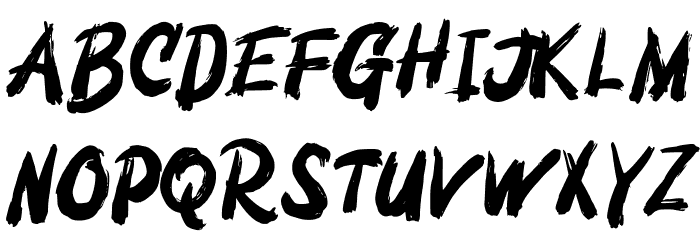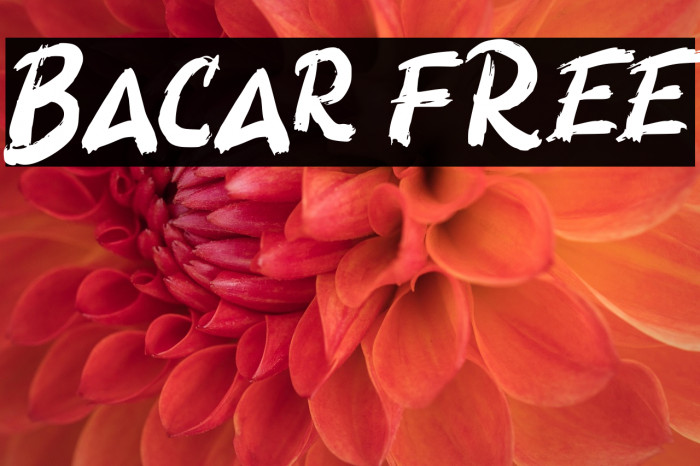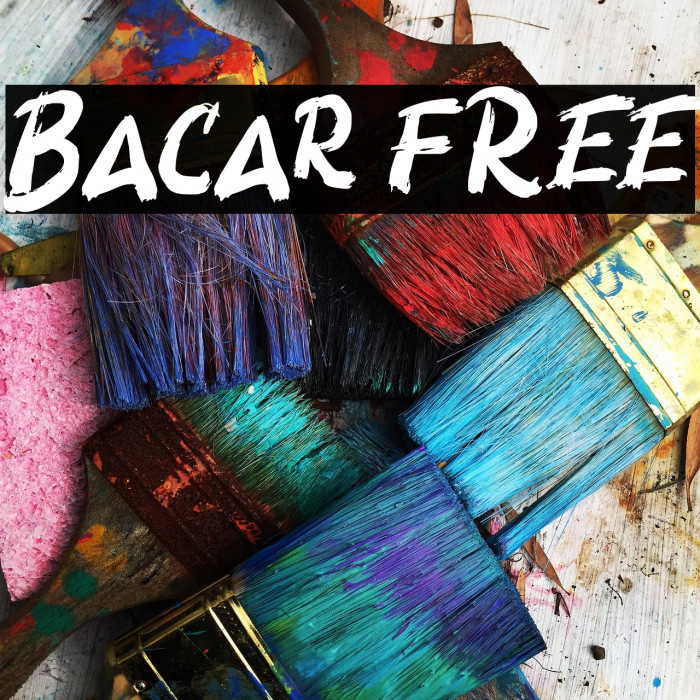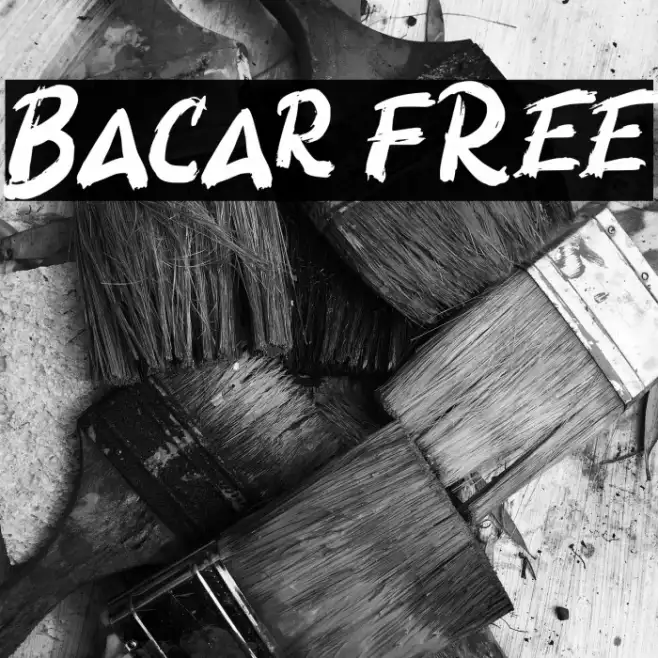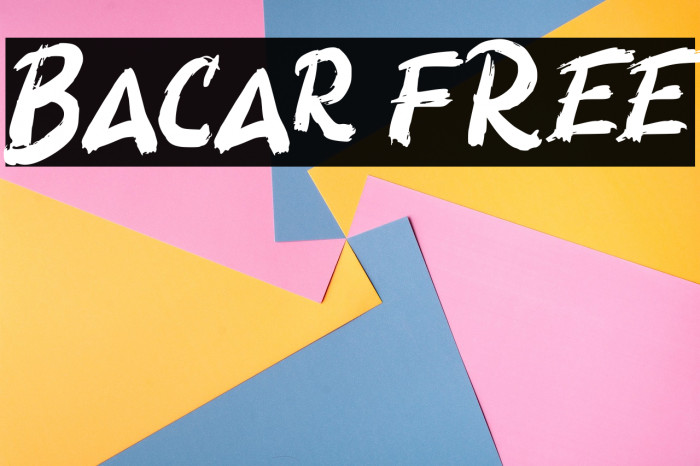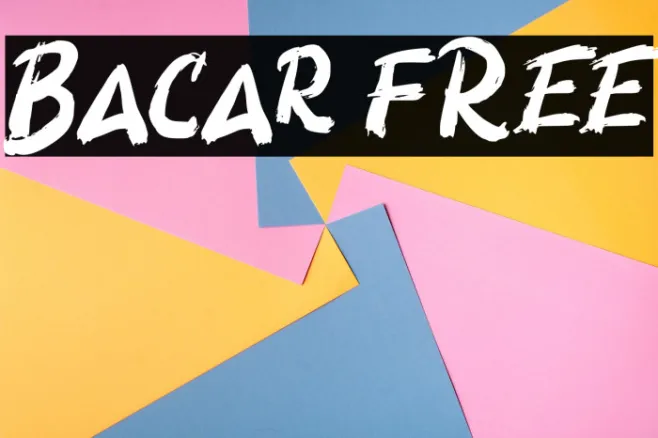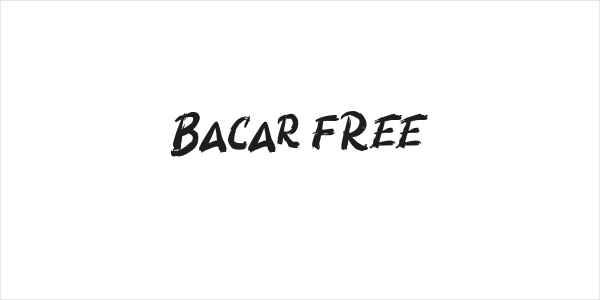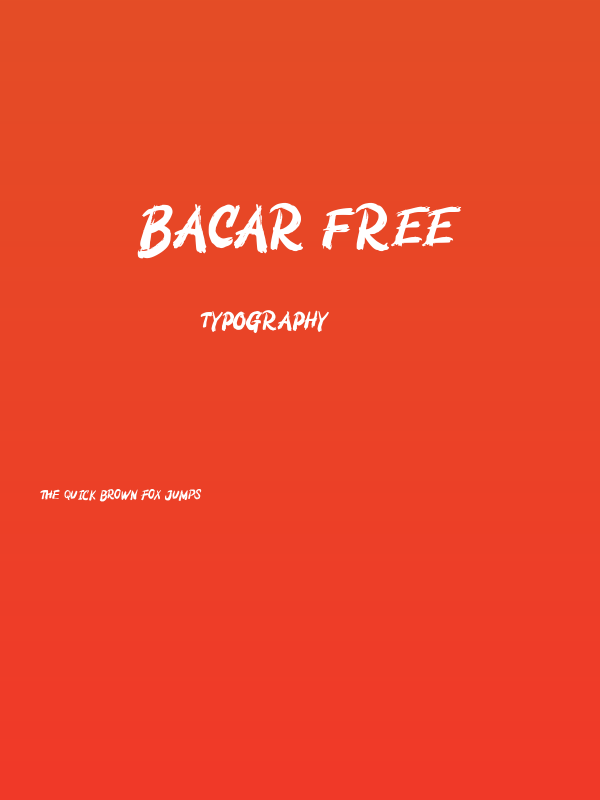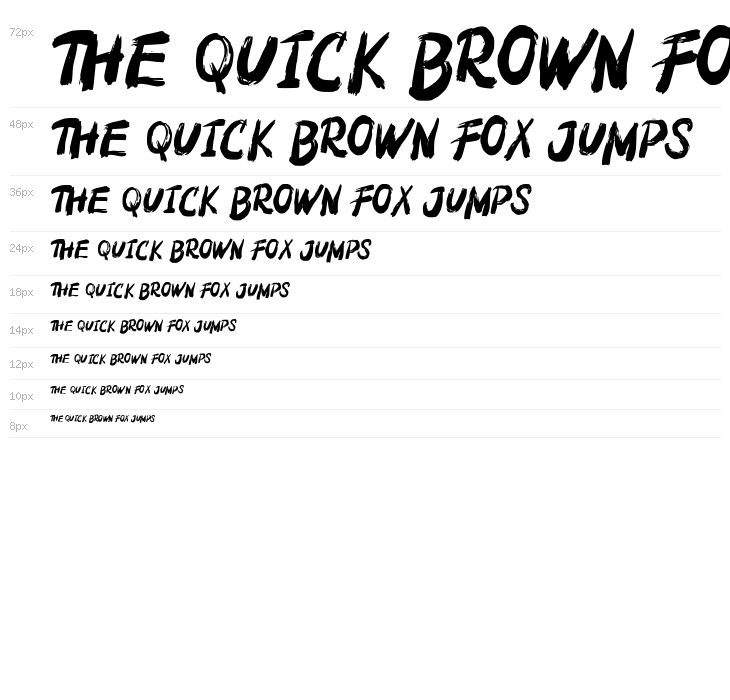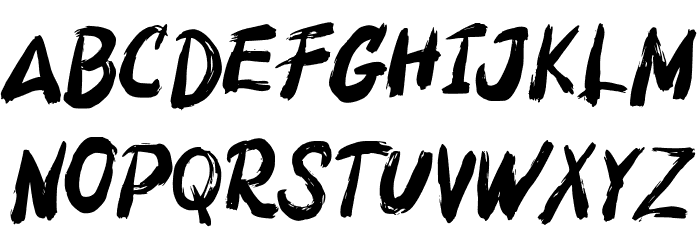
Bacar FREE Font
Bacar FREE Description
This font exhibits a bold and dynamic brush script style, characterized by its energetic strokes and expressive flair. The letters are crafted with a sense of motion, giving them a lively and artistic appearance. The uppercase and lowercase characters maintain a consistent flow, with each letter seamlessly connecting to the next. The strokes vary in thickness, adding a sense of depth and texture to the overall design. This font is perfect for projects that require a touch of creativity and spontaneity, making it ideal for artistic and informal applications.
| Proposed Projects | Ideal for creative projects such as posters, branding, invitations, and artistic designs. |